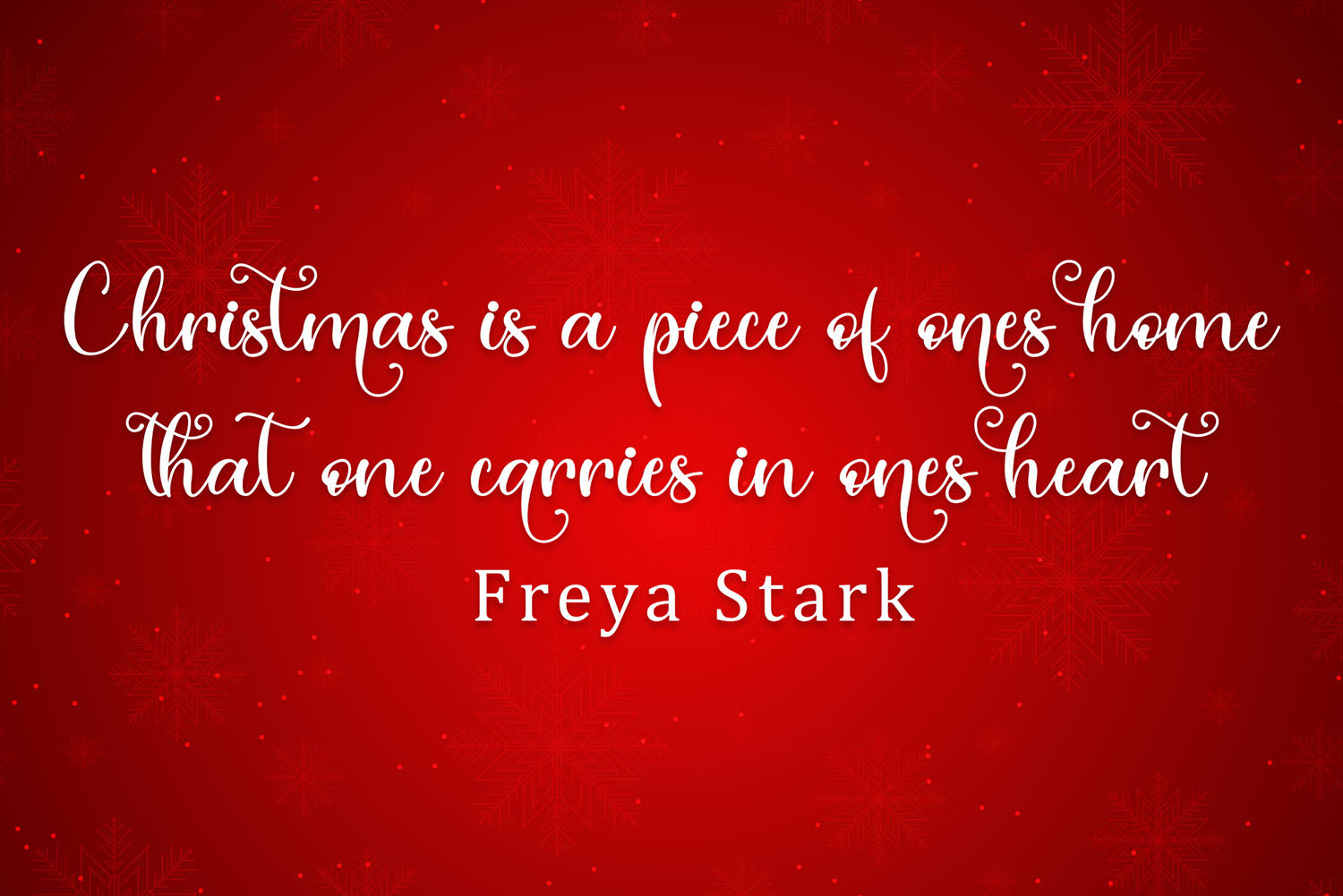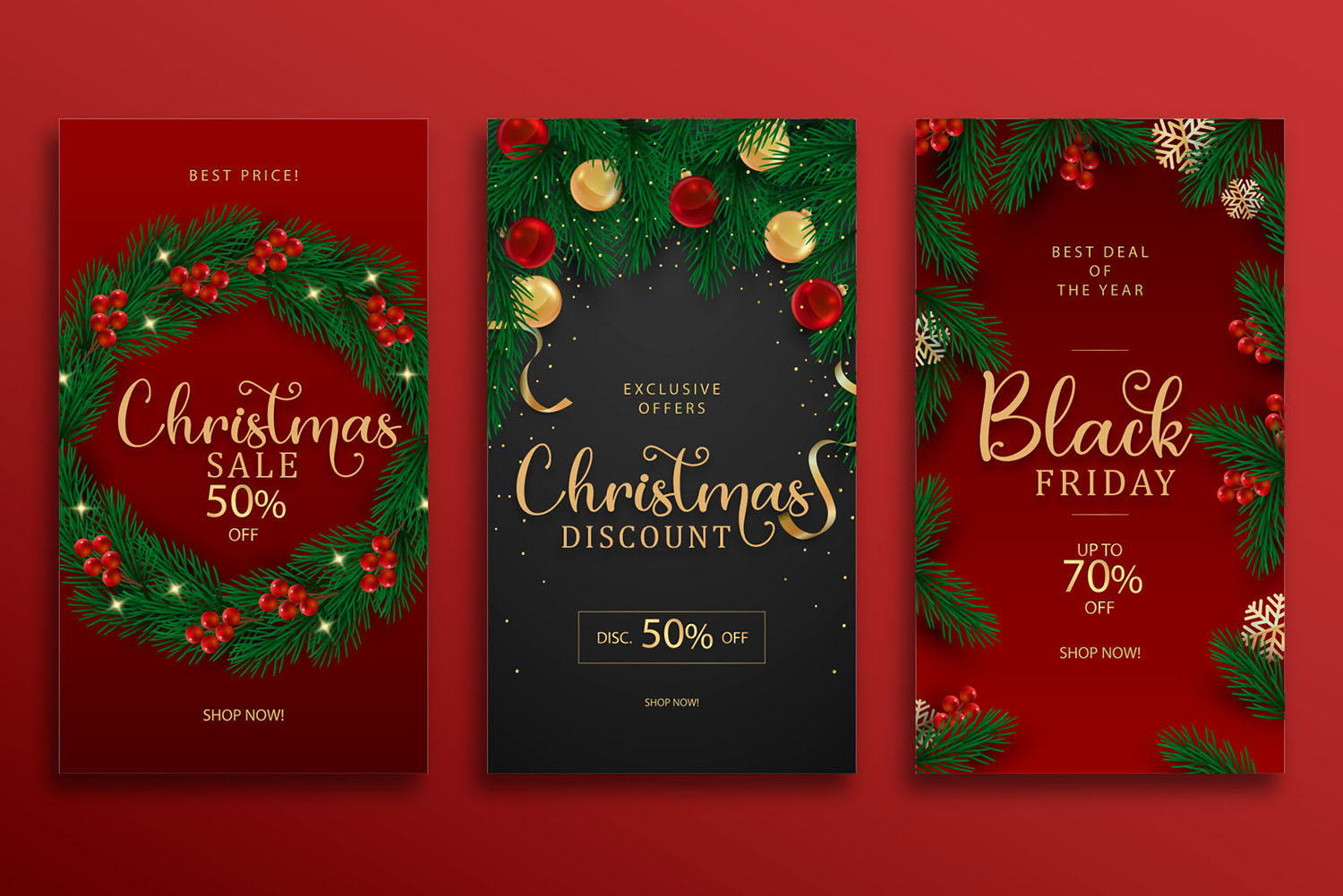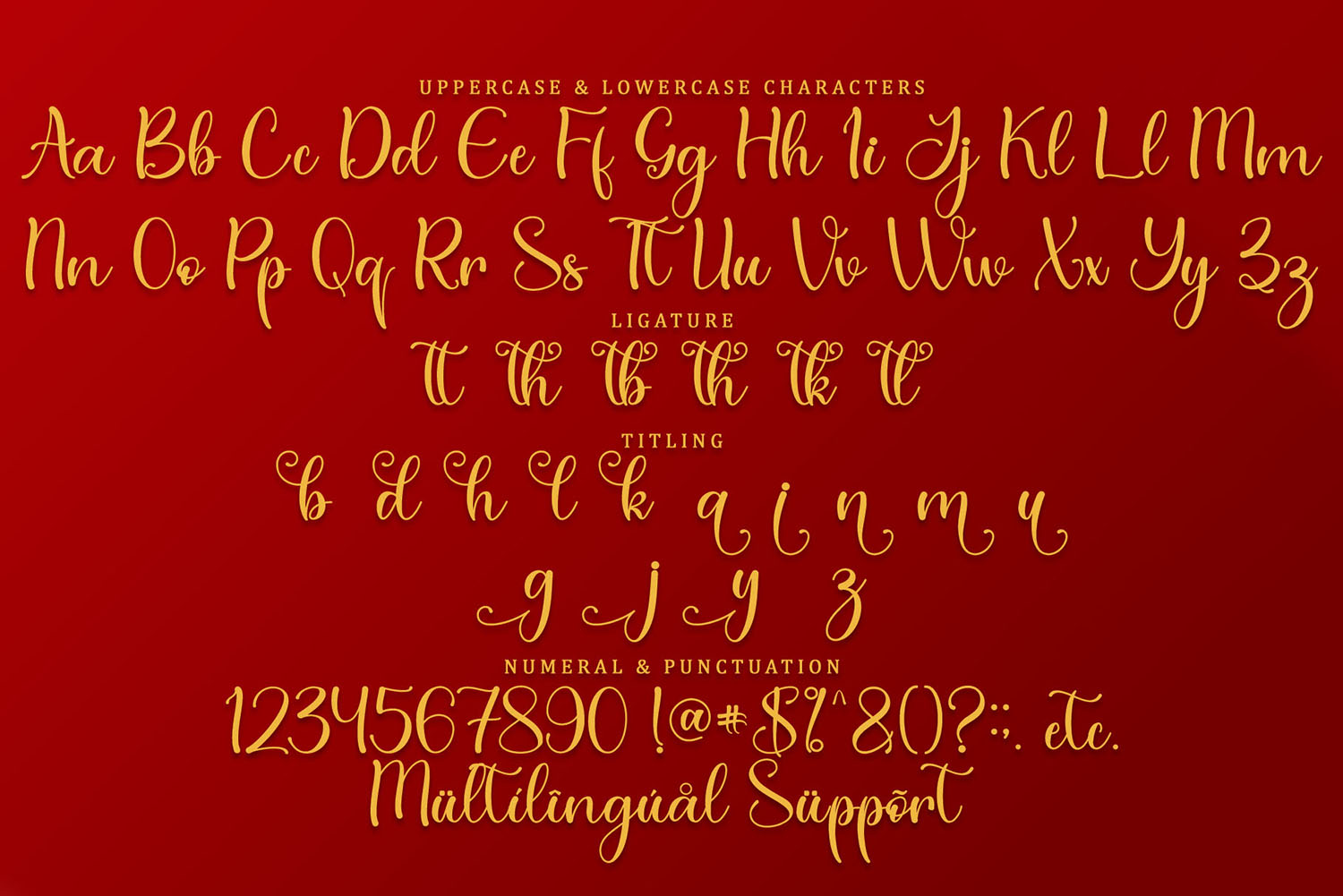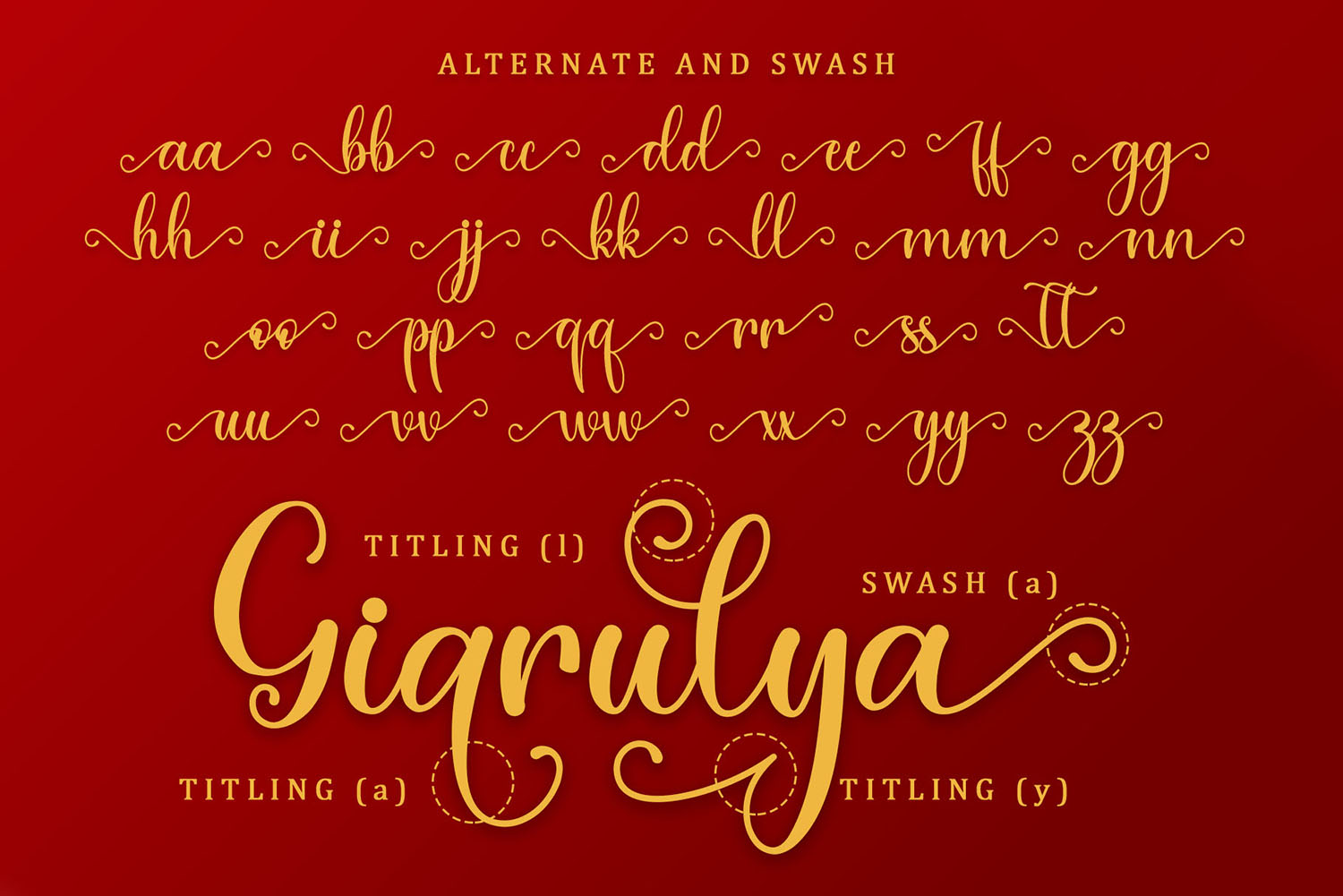
Christmas Theme Free Font
Introducing the Christmas Theme Free Font, a stunning and elegant handwritten font that infuses a touch of luxury into any design project you envision. This free typeface was designed by a talented Alif Ryan Zulfikar. If you like it don’t forget to check out the full version.